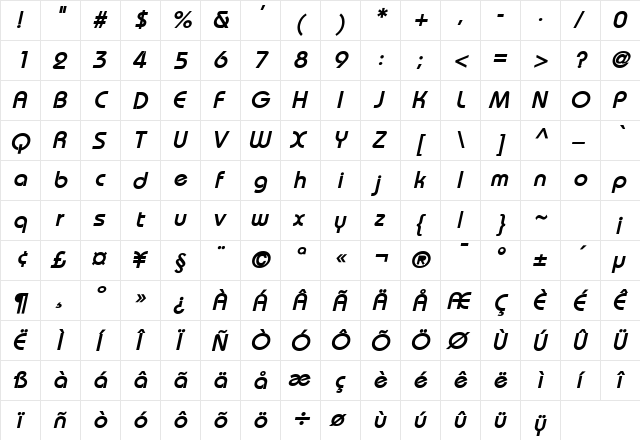
Bimini Bold Italic Font Preview
Design Context for Bimini Typeface
Bimini offers clean, dependable letterforms without strong stylistic allegiance, making it a practical choice for designers who need flexibility. The dynamic lean of this cut emphasises speed and emphasis in any layout. The heavy weight commands attention and anchors typographic hierarchies.
Pro Tip: Try Bimini for annotation and caption copy alongside an upright companion — the contrast in angle creates a dynamic but ordered typographic system.